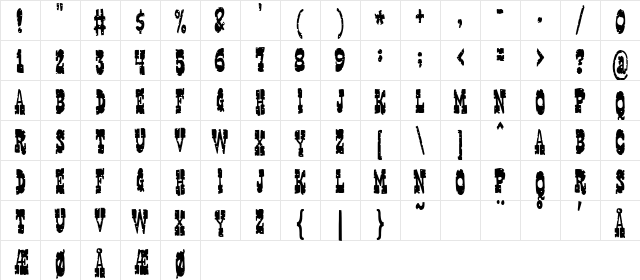
Complete Gringo Nights Regular glyph index. Displaying only characters natively supported by Gringo Nights Regular font.
Gringo Nights is a composed and adaptable typeface that performs quietly and consistently across a wide range of design contexts.